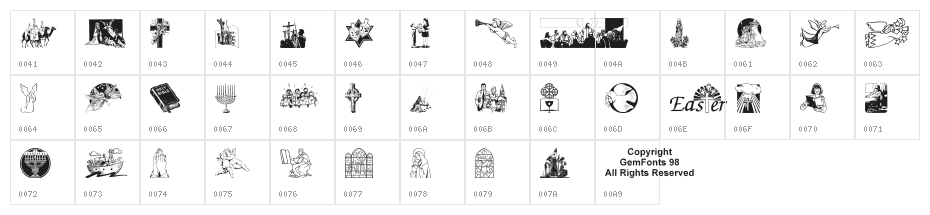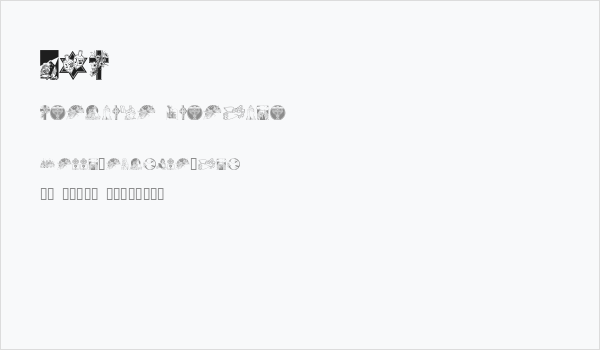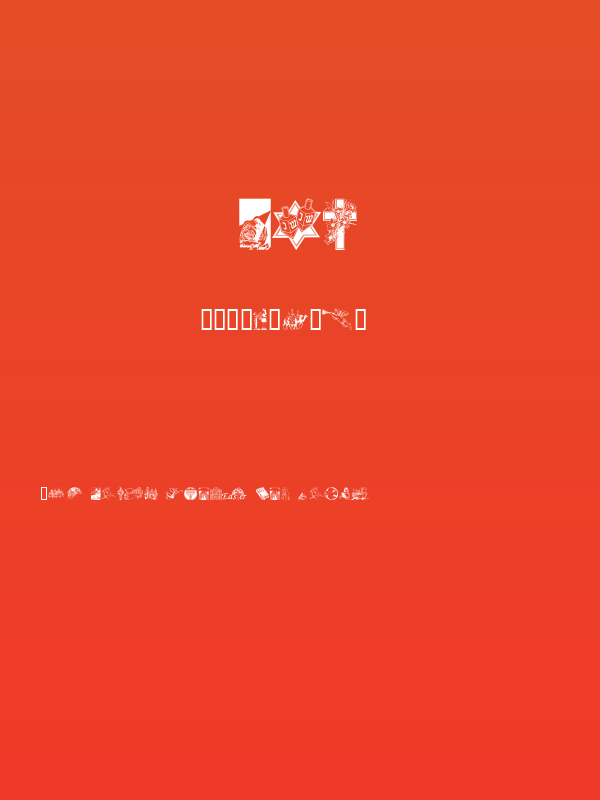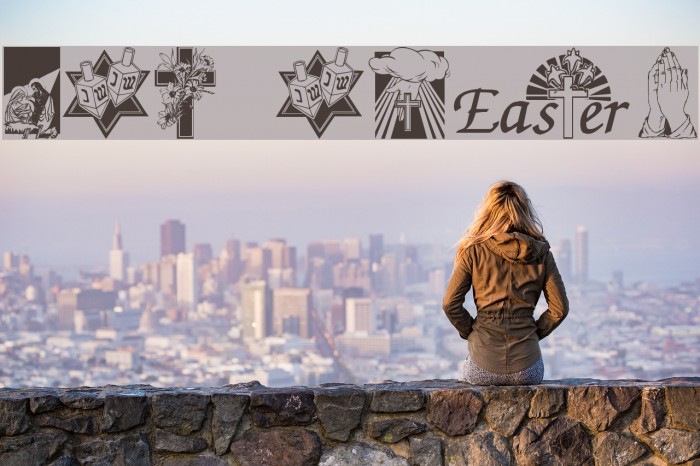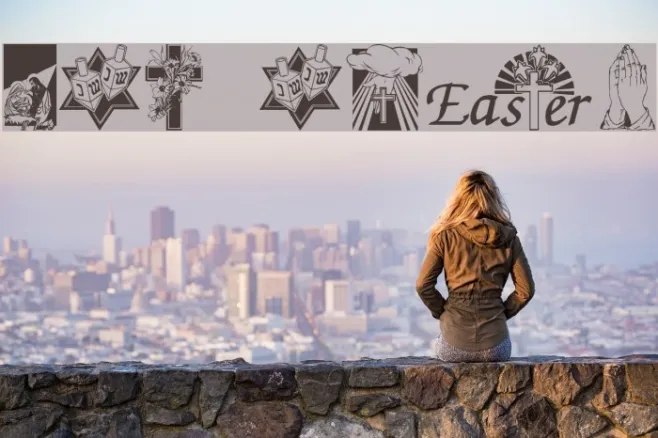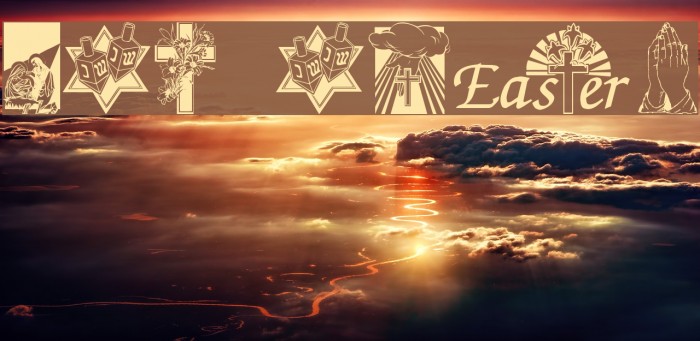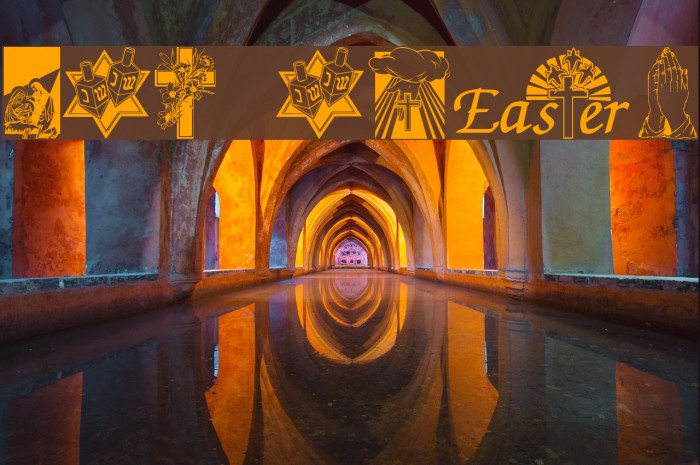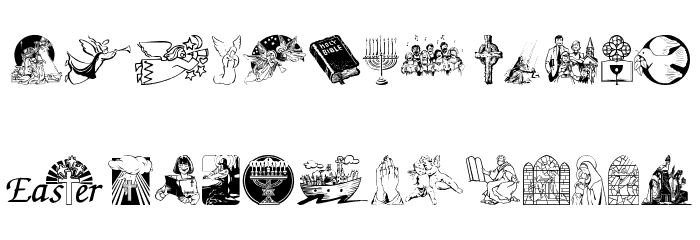
JFC Font
JFC Description
A decorative dingbat font featuring detailed religious and spiritual illustrations, including scenes and symbols from Christianity and Judaism, such as crosses, menorahs, biblical figures, and Easter imagery. The glyphs are highly illustrative and not standard alphanumeric characters.
| Overall Style | Decorative, Thematic |
| Use Case | Illustrative accents, thematic dividers, decorative elements. |
| Proposed Projects | Religious event flyers, church bulletins, holiday cards, educational materials, decorative borders. |